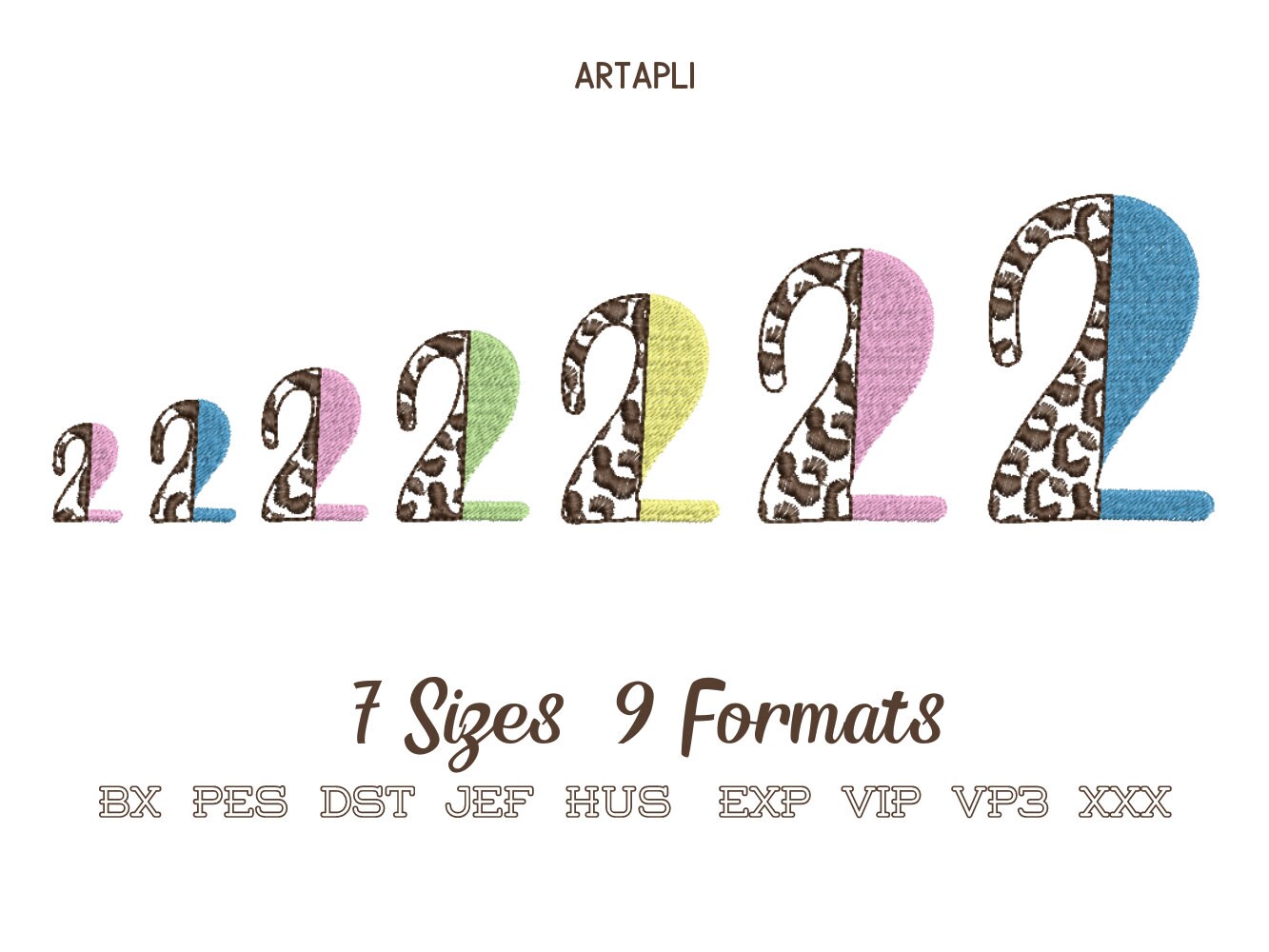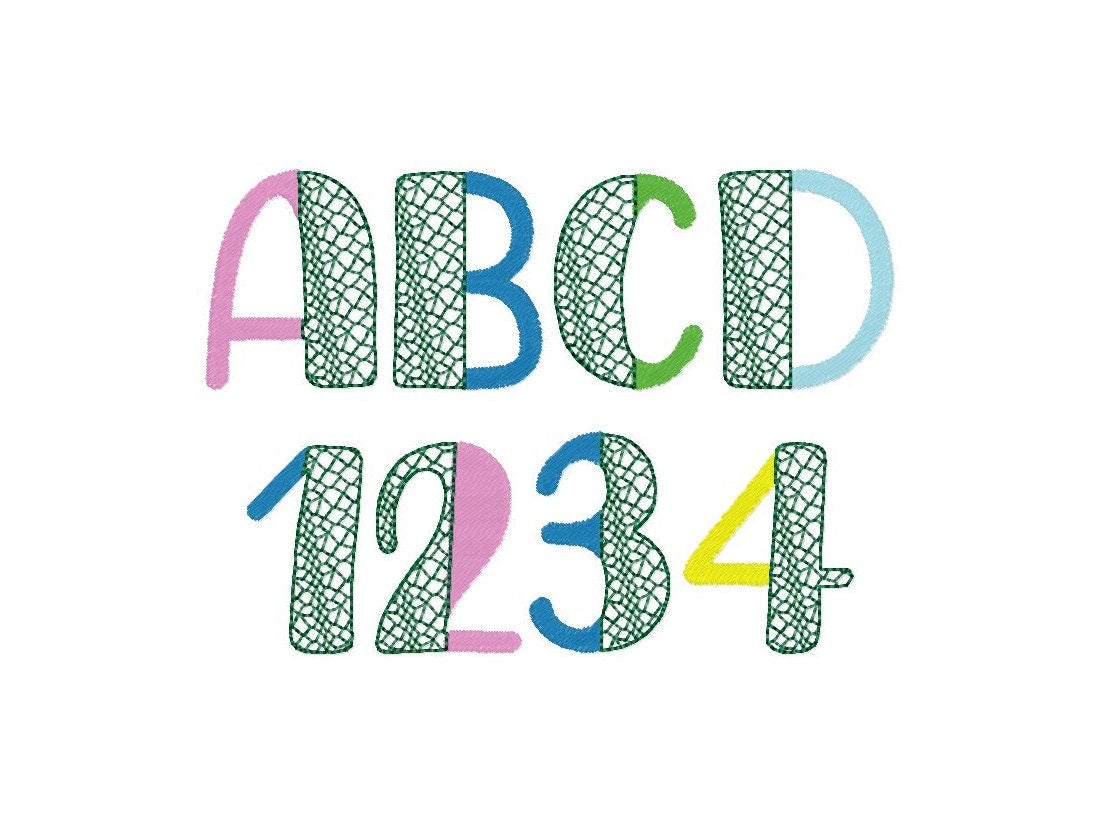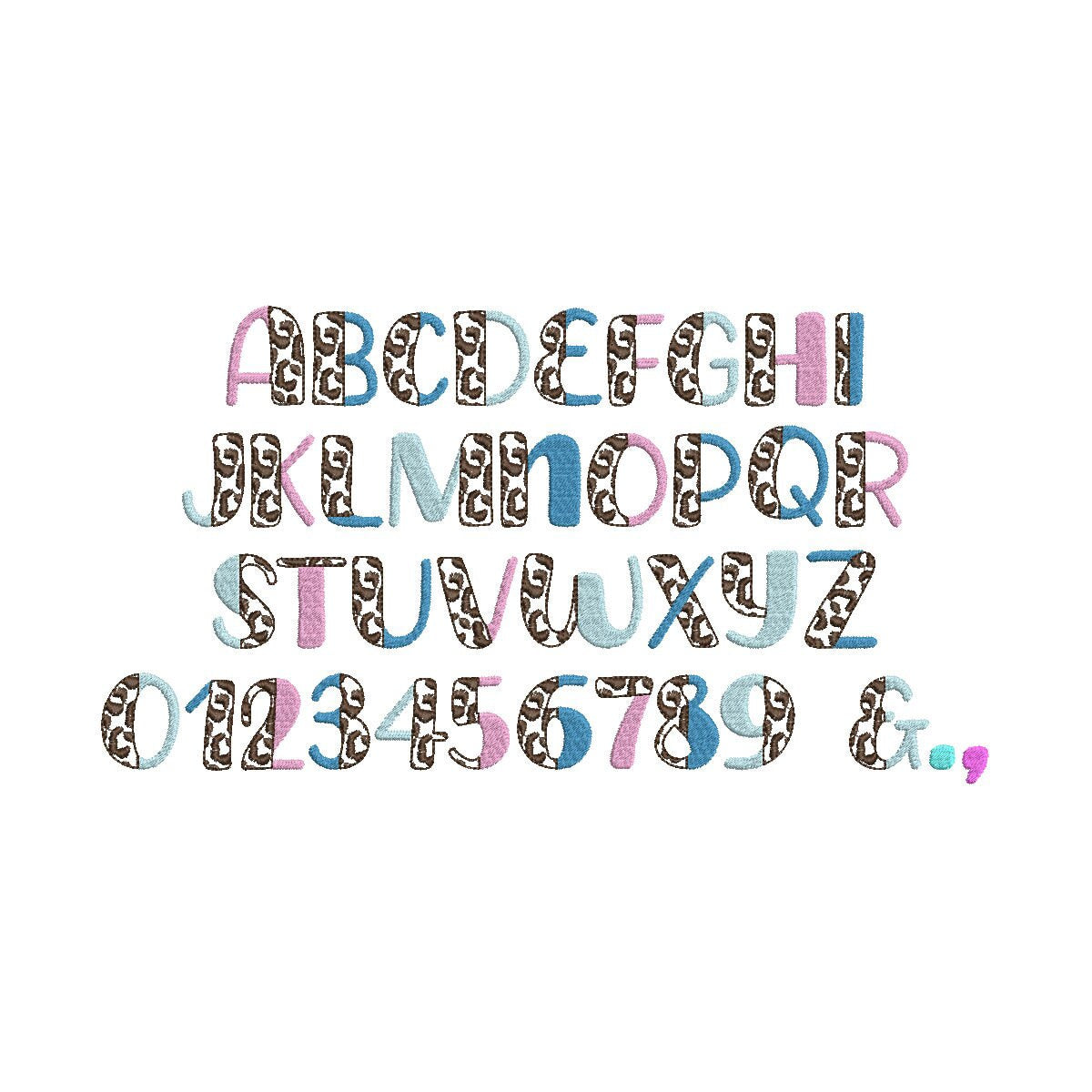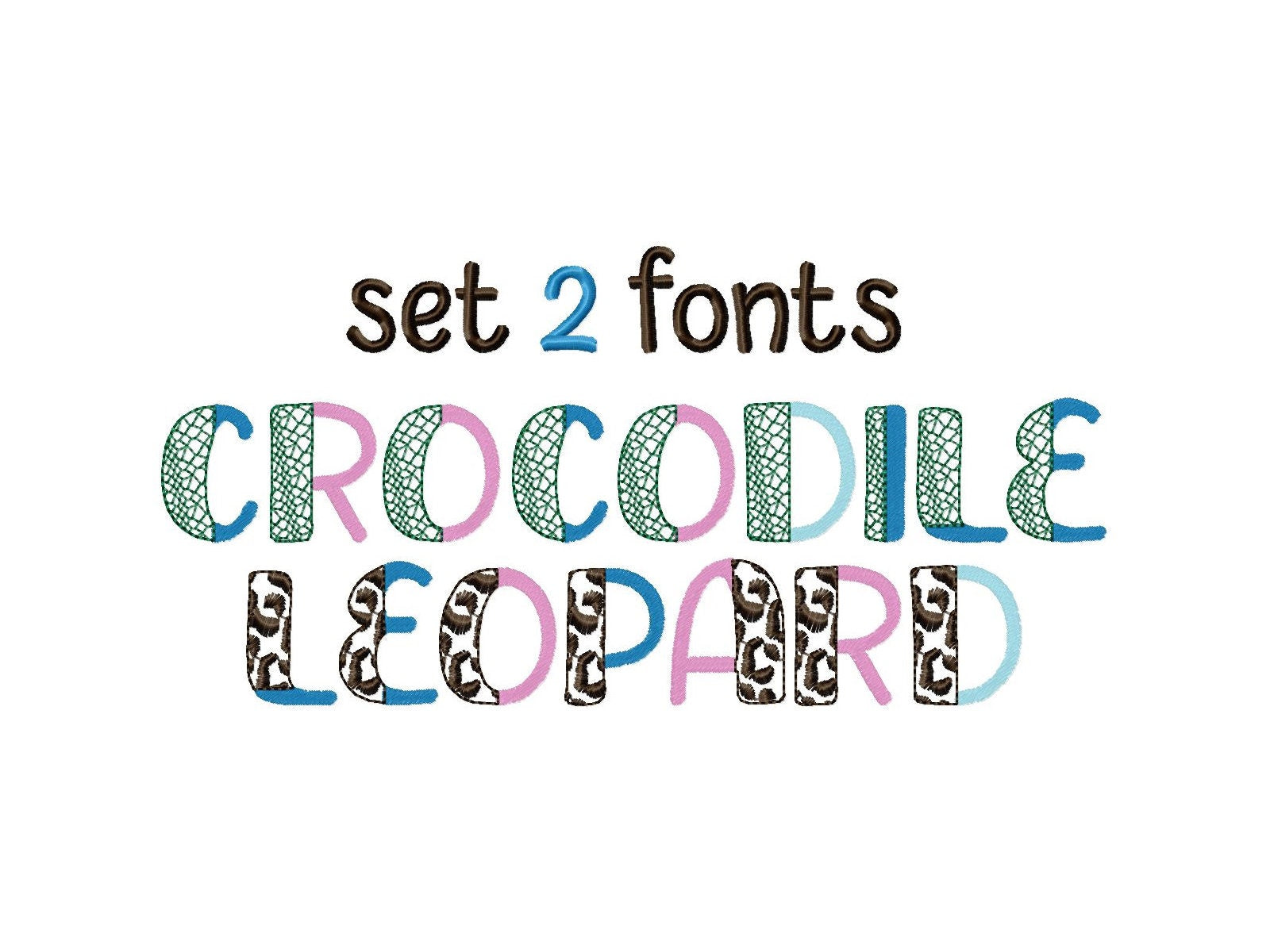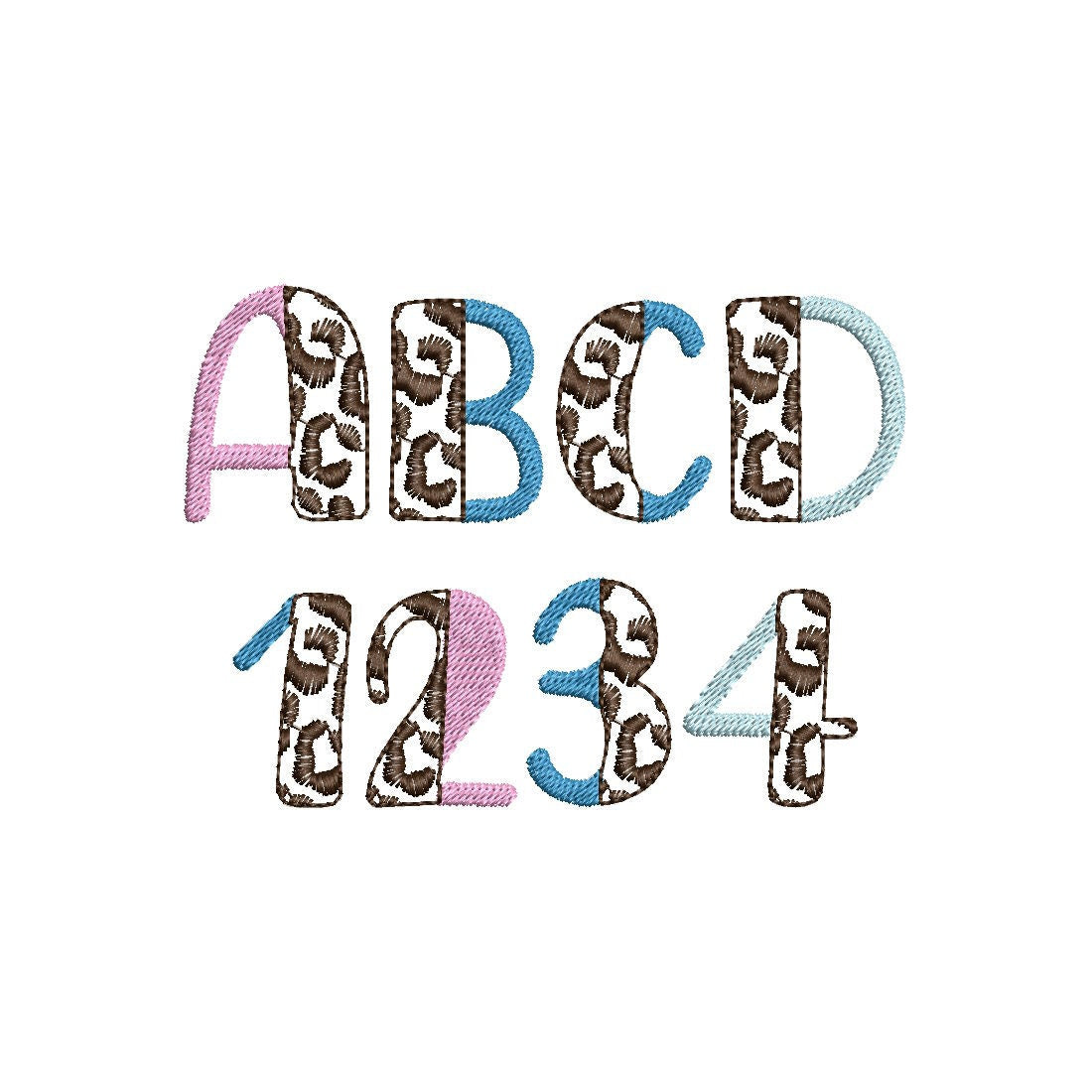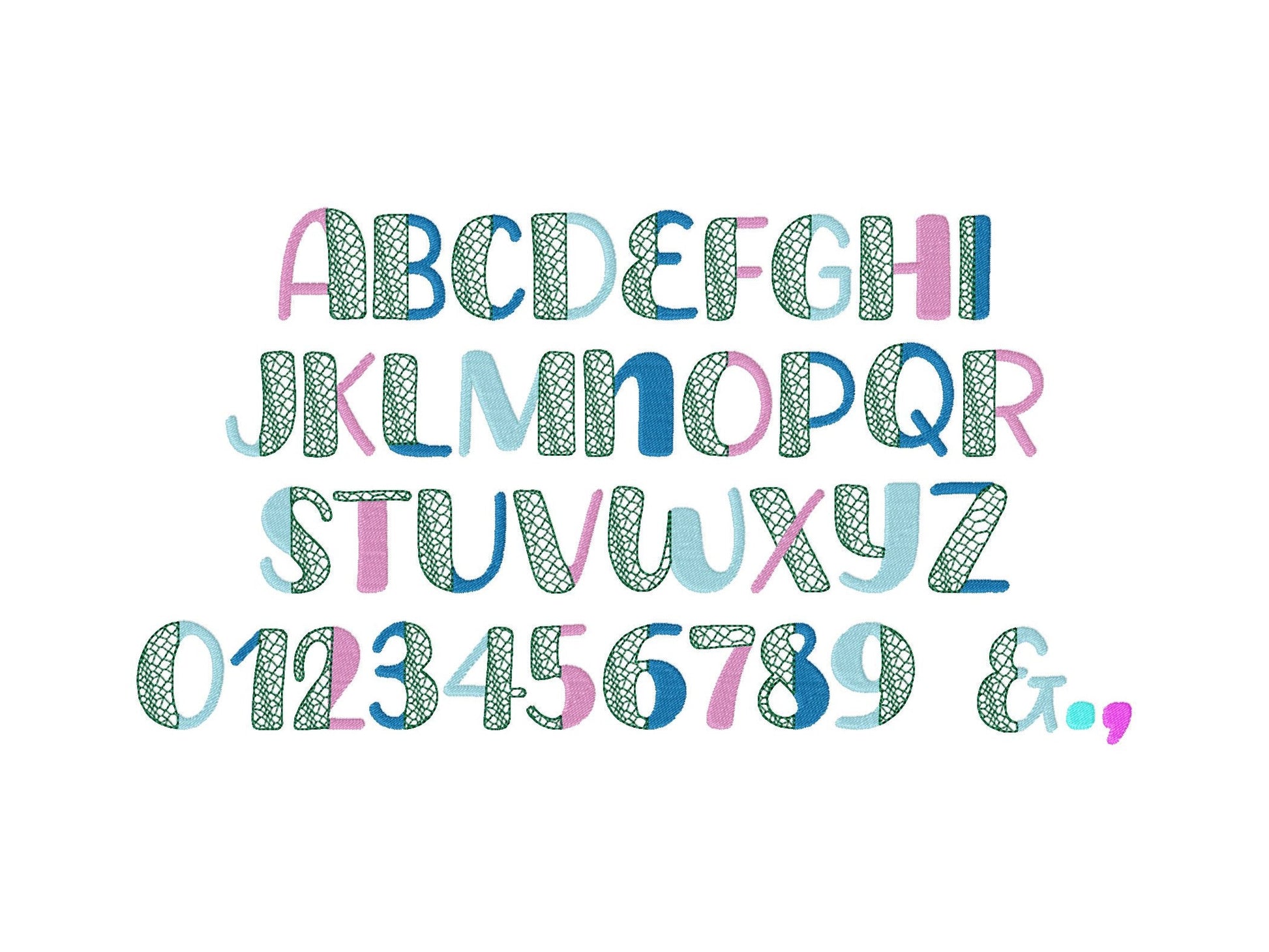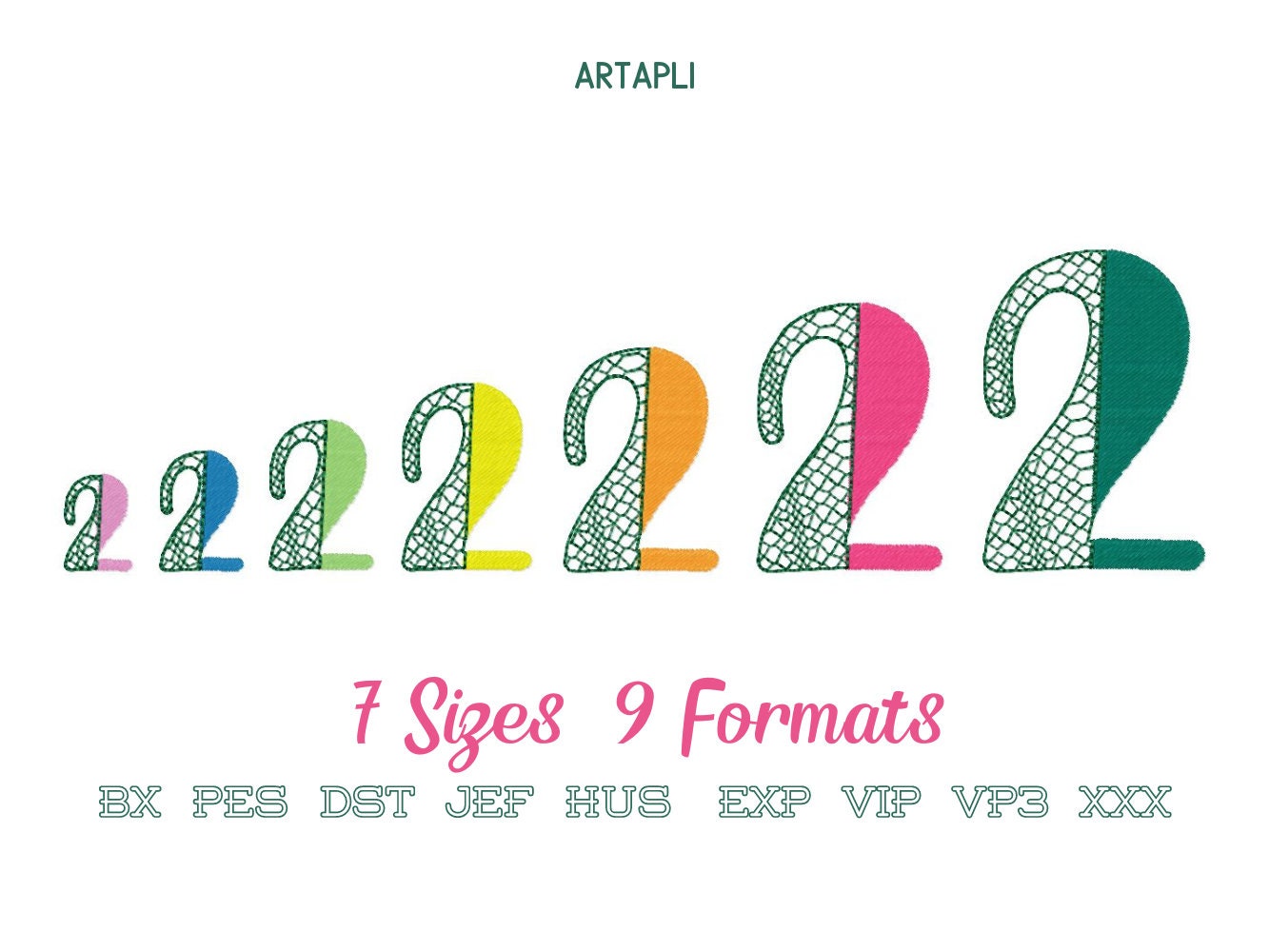
Split Font Set of 2 Crocodile and Leopard Print Fill Stitch Duo Font 2
Or click to open the linkA set of two split fonts: crocodile print and leopard spots. Each letter is half solid fill and half open animal print, great for monograms and names.
The animal print half is open, so the fabric shows through. Both fonts come in seven sizes: 1, 1.2, 1.5, 1.7, 2, 2.5 and 3 inches.
- Crocodile and leopard split fonts
- Uppercase A-Z, numbers 0-9, & , .
- 7 sizes, 1 to 3 in